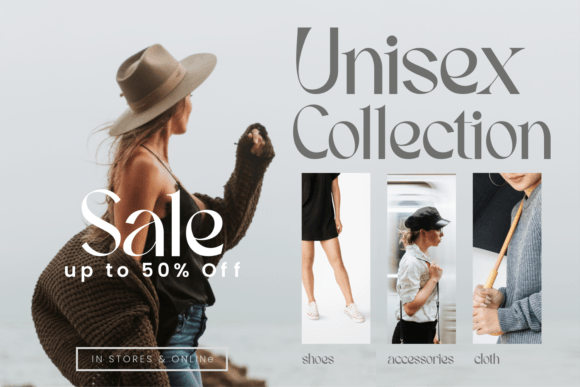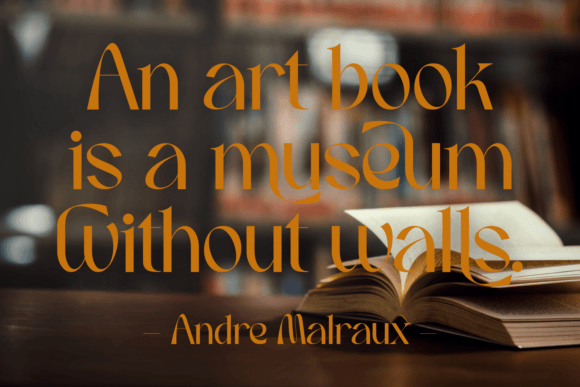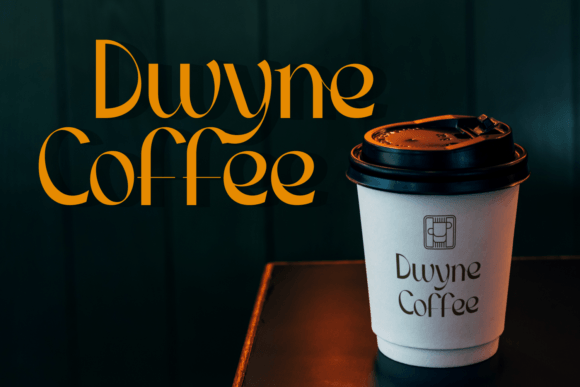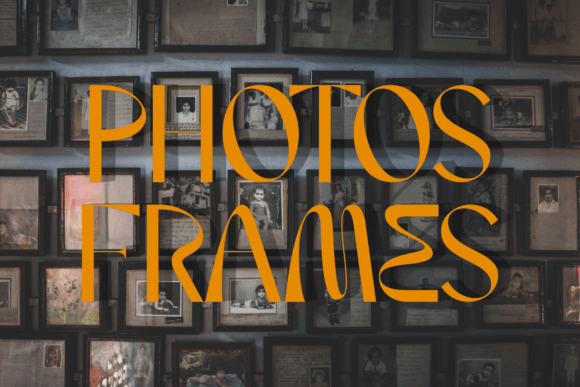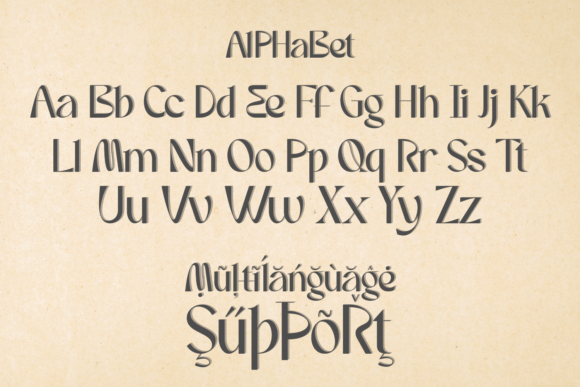
Introducing Dwyne Font: Elevate Your Designs with Elegance and Style
In the world of typography, a font can make all the difference in bringing your creative vision to life. If you’re a designer, crafter, or simply someone who appreciates the art of beautiful lettering, you’re in for a treat. Say hello to Dwyne Font, a unique, elegant, and incredibly stylish sans serif font that’s about to become your new favorite.
What Makes Dwyne Font So Special?
Dwyne Font is masterfully designed to bring a touch of sophistication and glamour to any project. Its sleek, sans serif lines exude a sense of modernity and freshness, making it perfect for a wide range of applications. Whether you’re working on a logo, branding materials, packaging, or digital media, Dwyne Font is sure to impress.
One of the standout features of Dwyne Font is its PUA (Private Use Area) encoding. This means that you can access all the glyphs and alternates with ease, giving you unparalleled flexibility and creative control. With PUA encoding, you can effortlessly swap out characters, experiment with different ligatures, and fine-tune your typography to perfection.
Endless Possibilities with Dwyne Font
Dwyne Font is more than just a pretty face – it’s a versatile tool that can be used in a multitude of contexts. Here are just a few ideas to get you started:
- Branding and Logo Design: Create a lasting impression with a custom logo that showcases your brand’s personality and style.
- Digital Media: Use Dwyne Font to add a touch of sophistication to your website, social media graphics, or email marketing campaigns.
- Packaging and Product Design: Stand out on store shelves with eye-catching packaging that features Dwyne Font.
- Crafting and DIY Projects: Add a personal touch to your handmade crafts, such as customized jewelry, home decor, or stationery.
Why Designers and Crafters Love Dwyne Font
So, what sets Dwyne Font apart from other fonts on the market? Here are just a few reasons why designers and crafters are falling in love with this stunning sans serif font:
- Unique and Elegant Design: Dwyne Font boasts a distinctive, high-end look that’s sure to elevate your designs.
- Easy to Use: With PUA encoding, you can access all the glyphs and alternates with ease, making it simple to get the look you want.
- Highly Versatile: Dwyne Font can be used in a wide range of applications, from digital media to packaging and branding.
- Exceptional Quality: Dwyne Font is crafted with attention to detail and a passion for typography, ensuring a flawless design experience.
Get Ready to Take Your Designs to the Next Level
In conclusion, Dwyne Font is an exceptional sans serif font that’s sure to make a lasting impression. Its elegant design, PUA encoding, and versatility make it an ideal choice for anyone looking to elevate their designs. Whether you’re a seasoned designer or a crafty DIY enthusiast, Dwyne Font is a must-have addition to your typography toolkit.